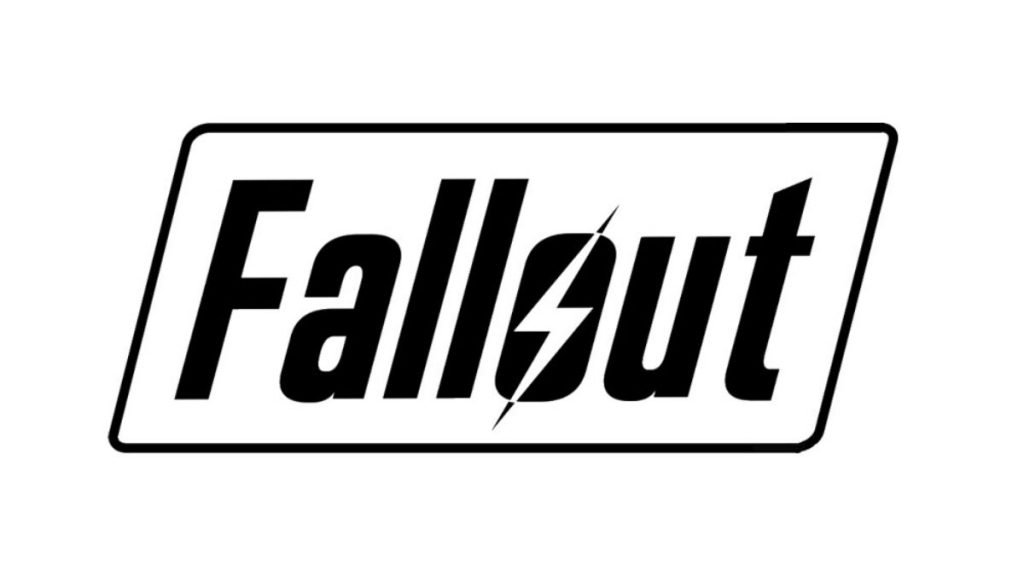
Basically, Fallout is a series based video game that was created by Interplay Entertainment. This first game for this series is released in 1997. Fallout Font is designed by Neale Davidson and the main use of this typeface was found in the logo of Fallout.
This font family is available in both lowercase and uppercase letters and also with all the punctuation marks and diacritical letters that when used with kiona font the output design will be great.
View Of Fallout Font
Below we are providing you the styling of this font so that you can get the idea of whether to use this typeface or not.
This unique and elegant font that has a popular texture so it is a really perfect font in all appreciate.
| Designer | Neale Davidson |
What Type of Font Is Fallout?
The Fallout Font is the famous and amazing typeface which was product of the efforts by Neale Davidson.
What’s the Closest Font to Fallout?
The Istok Web Regular is very close to the Fallout Font.